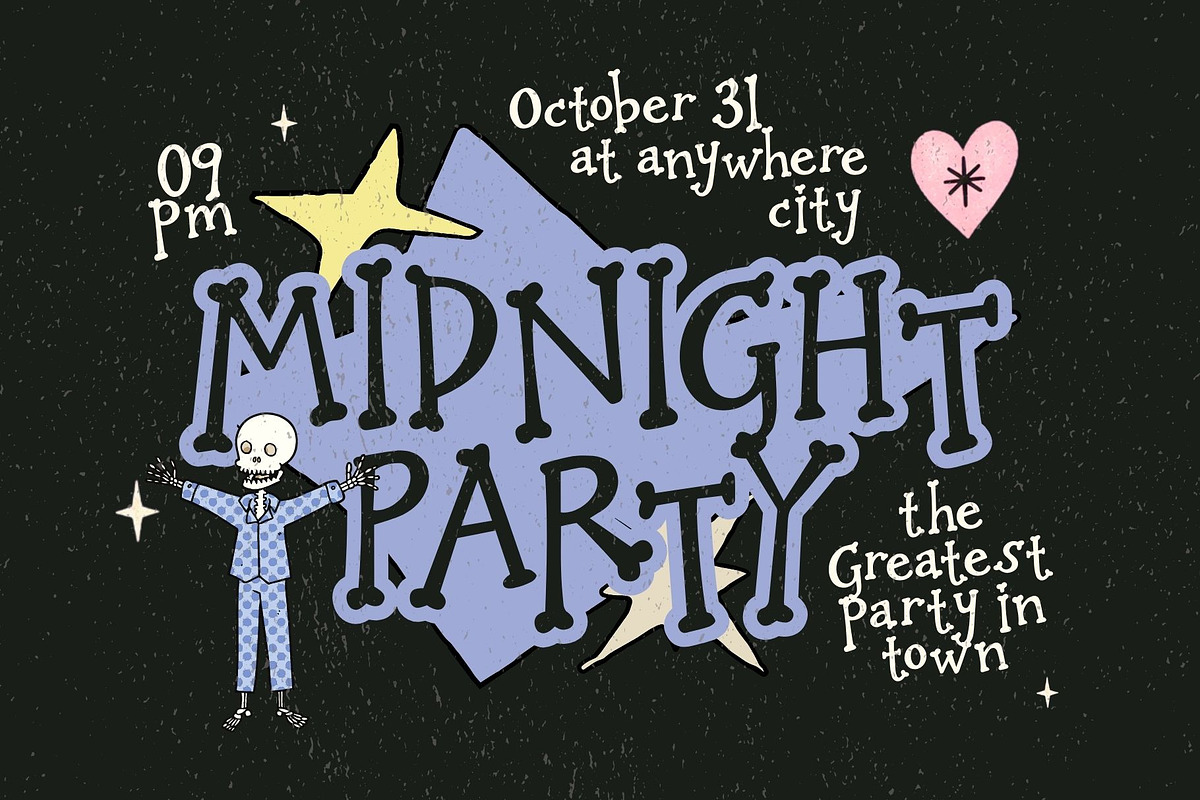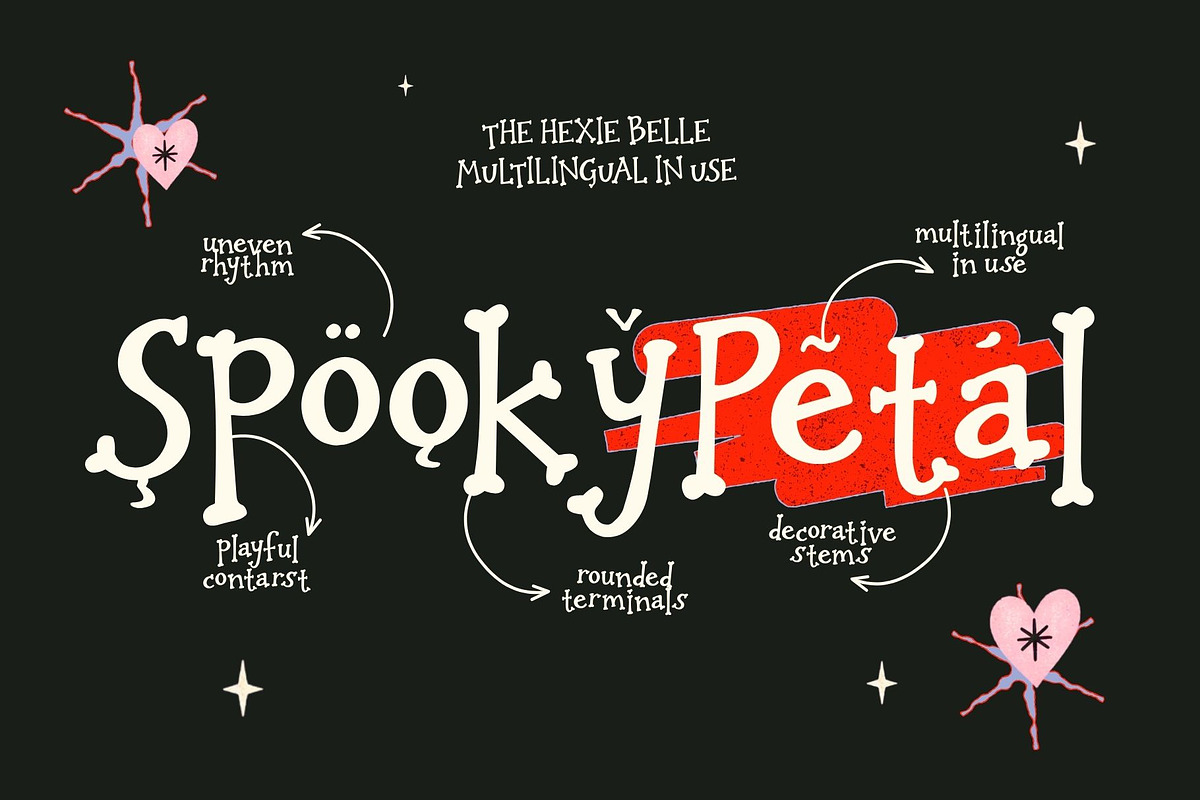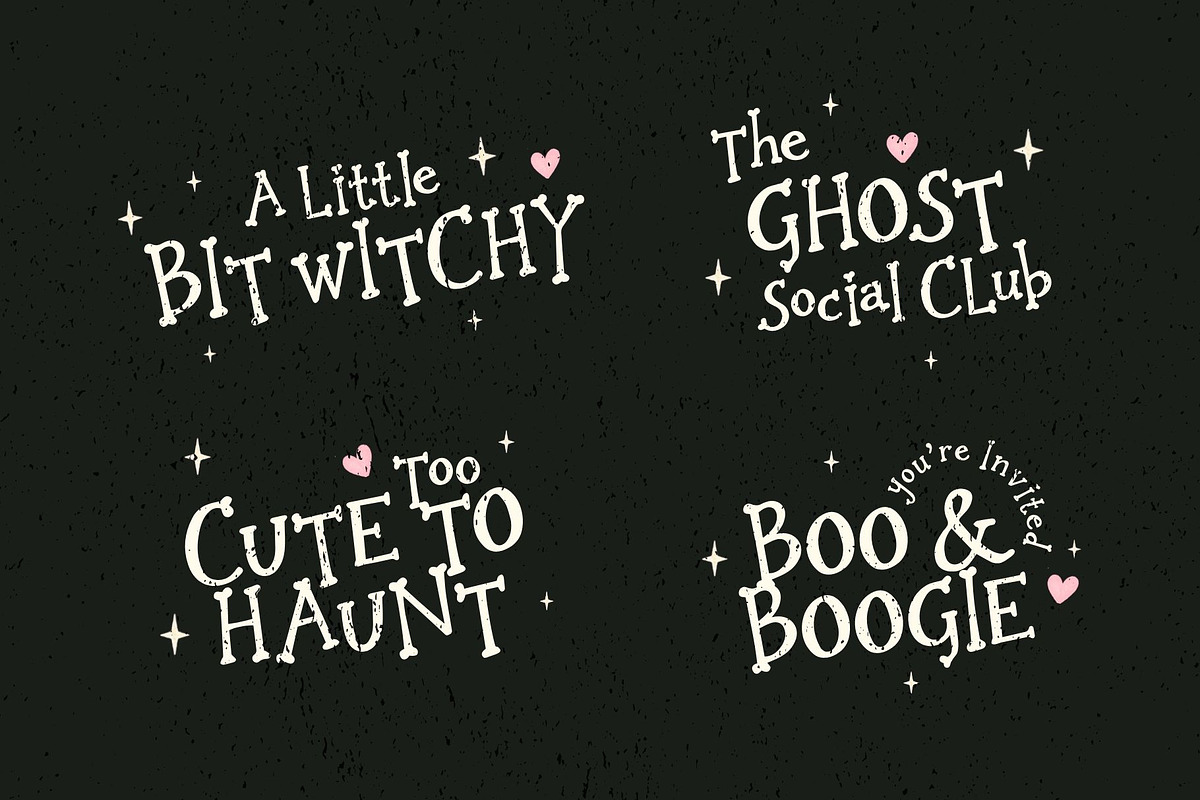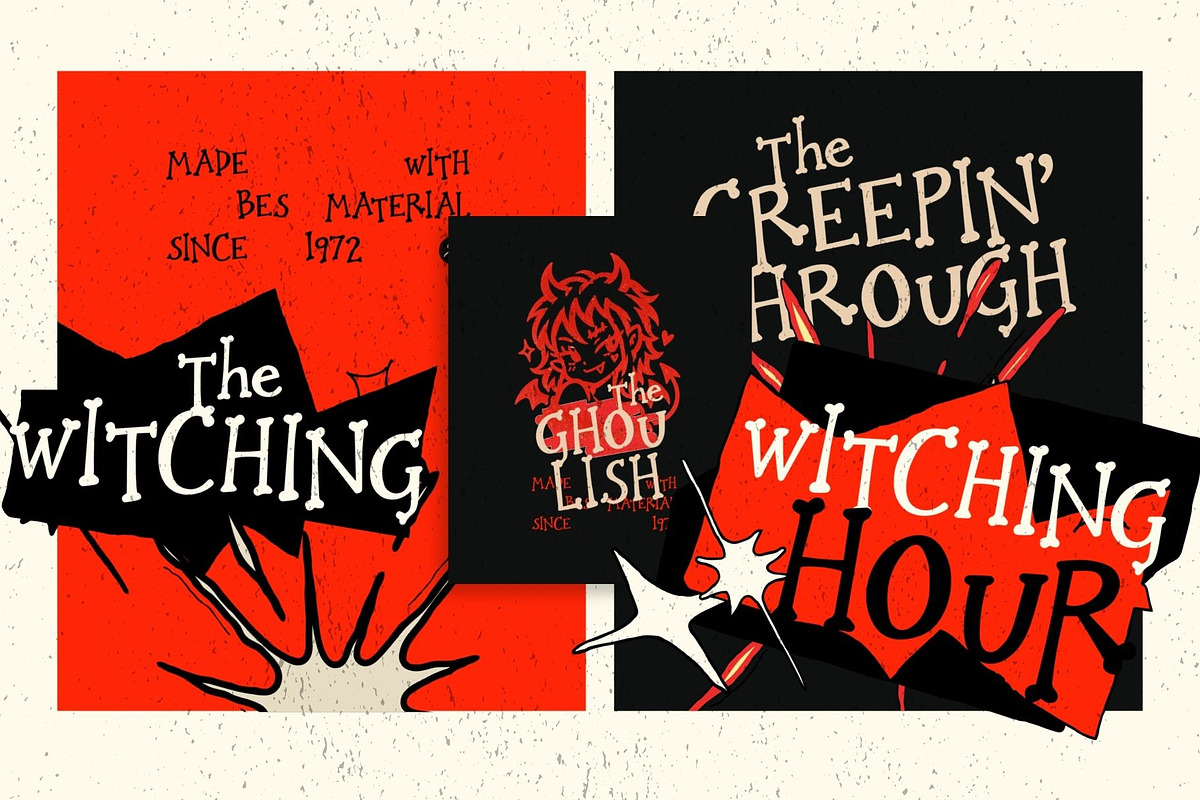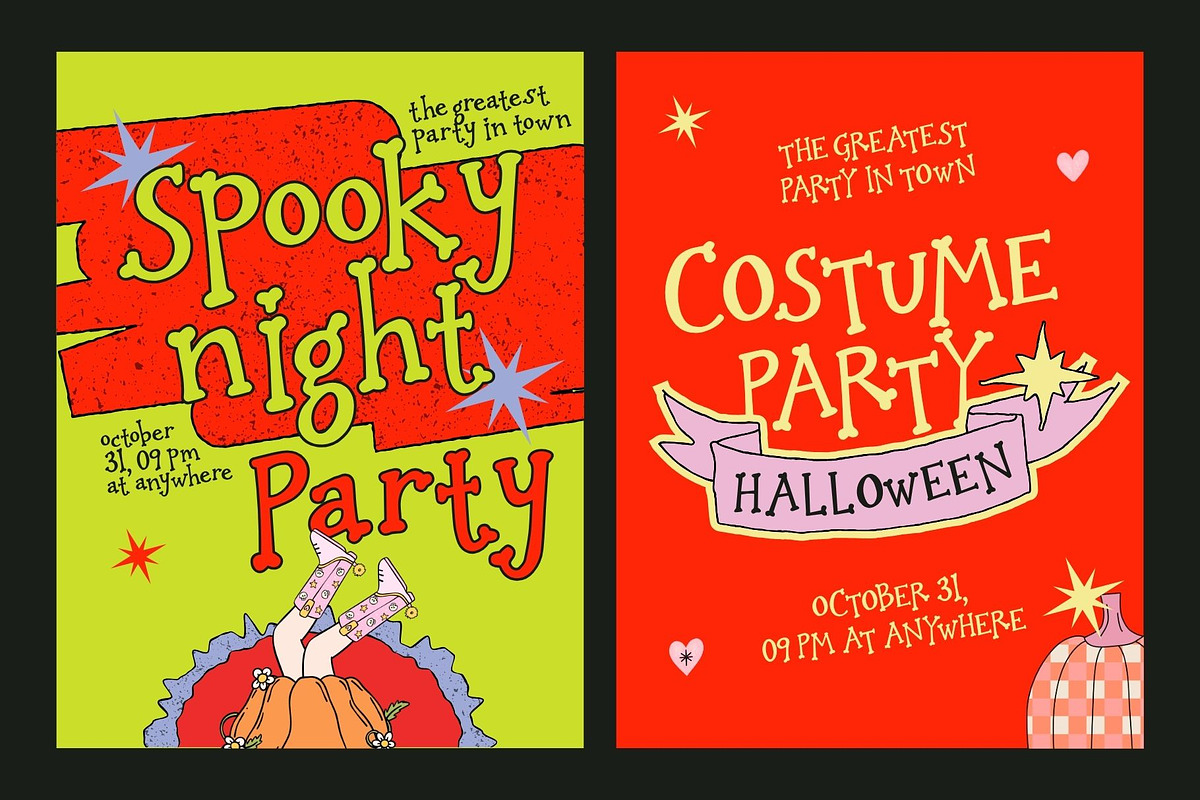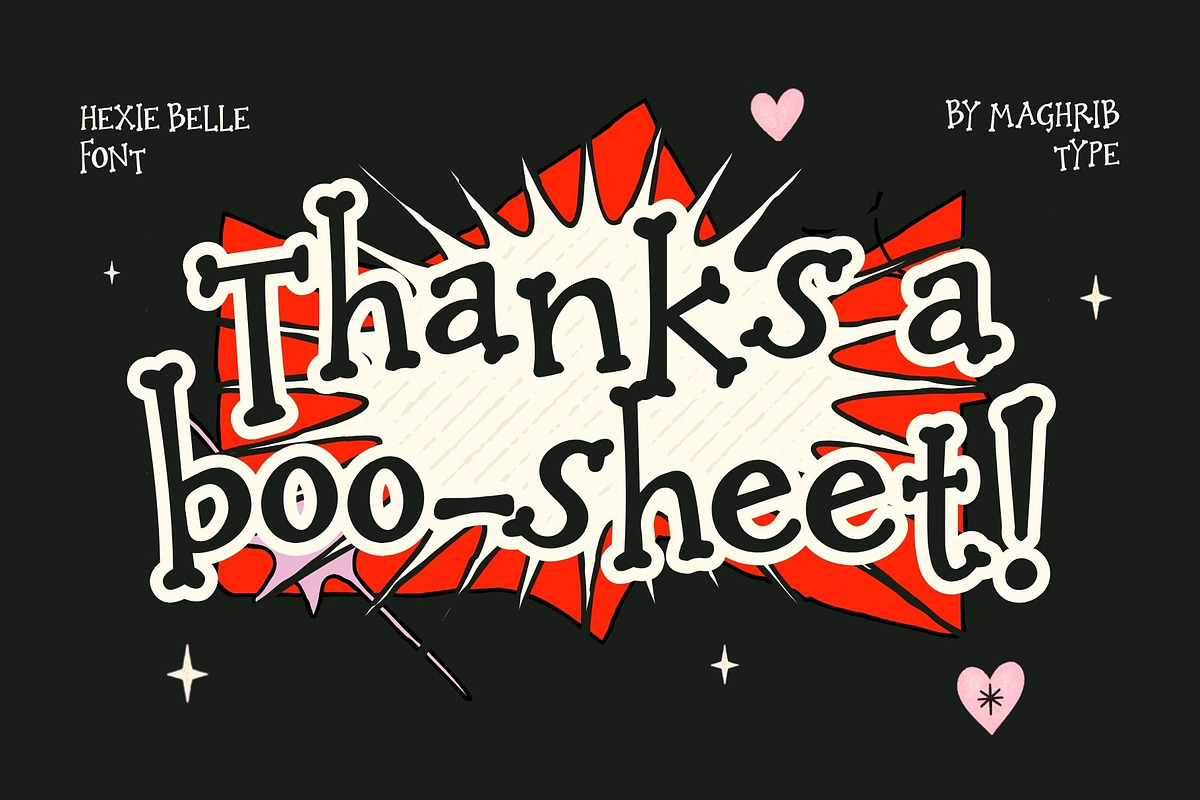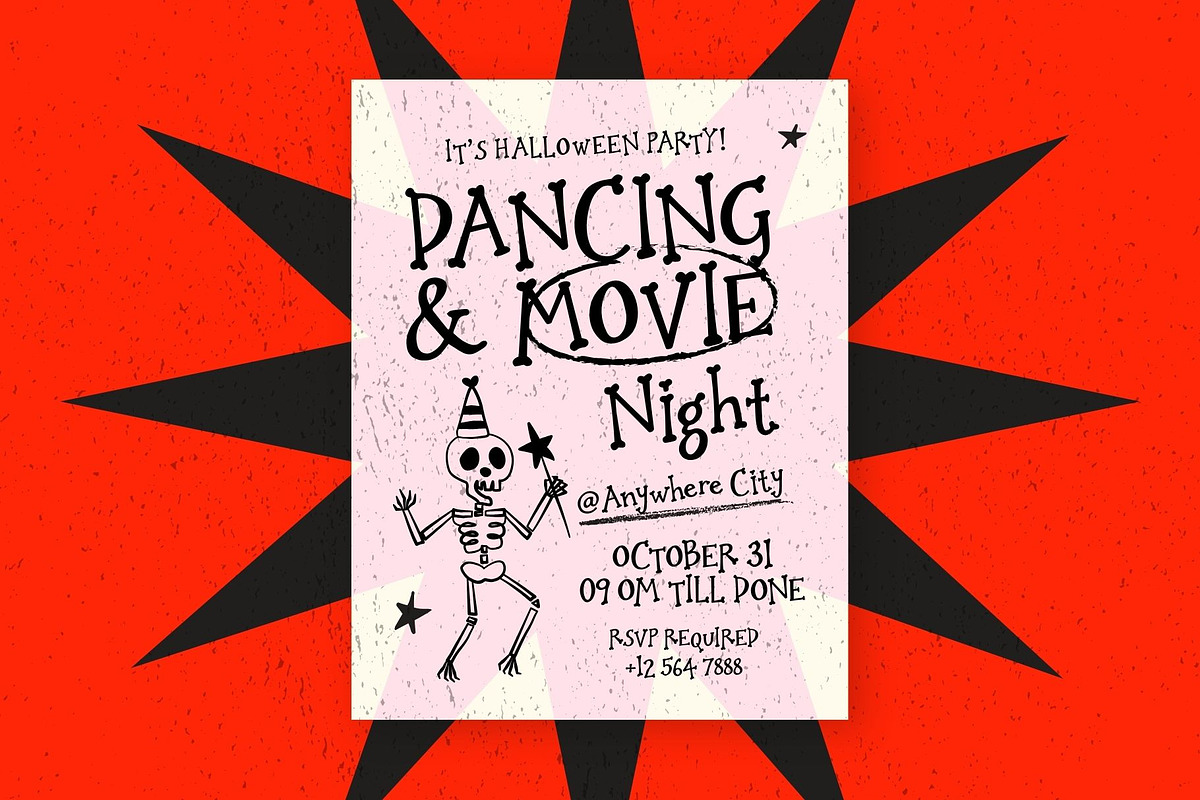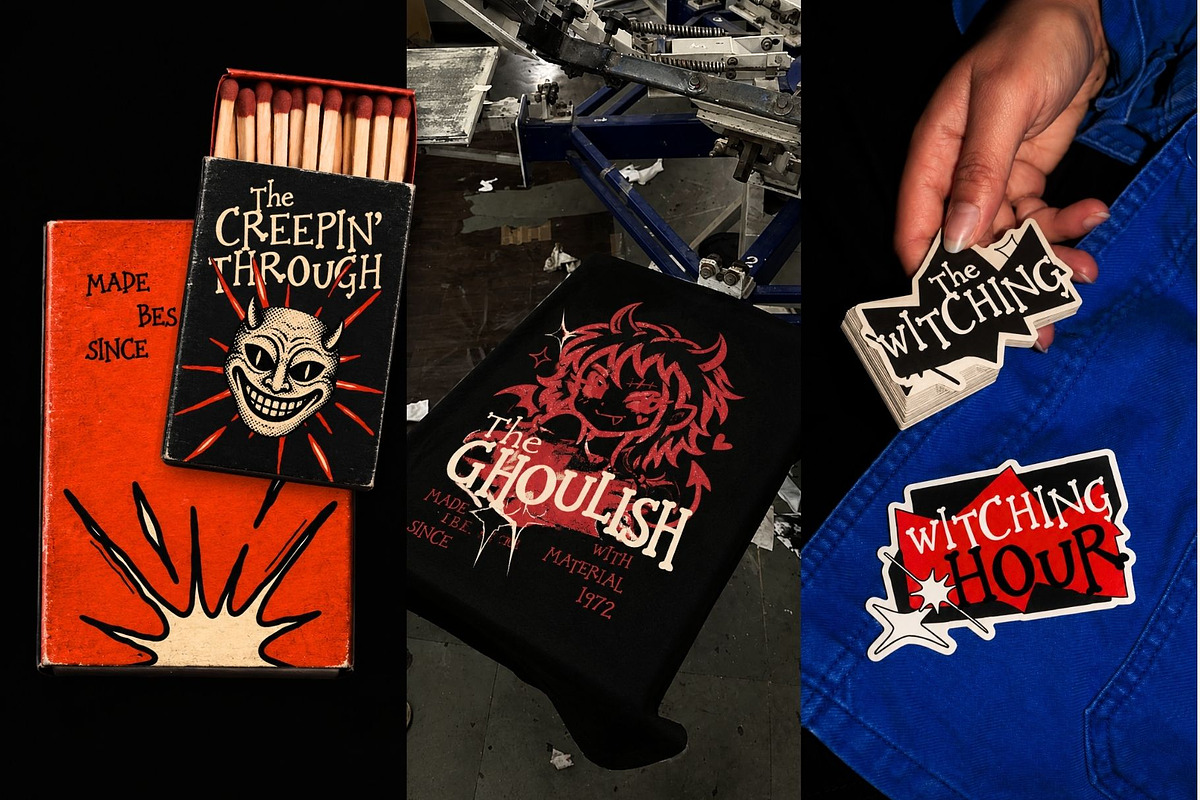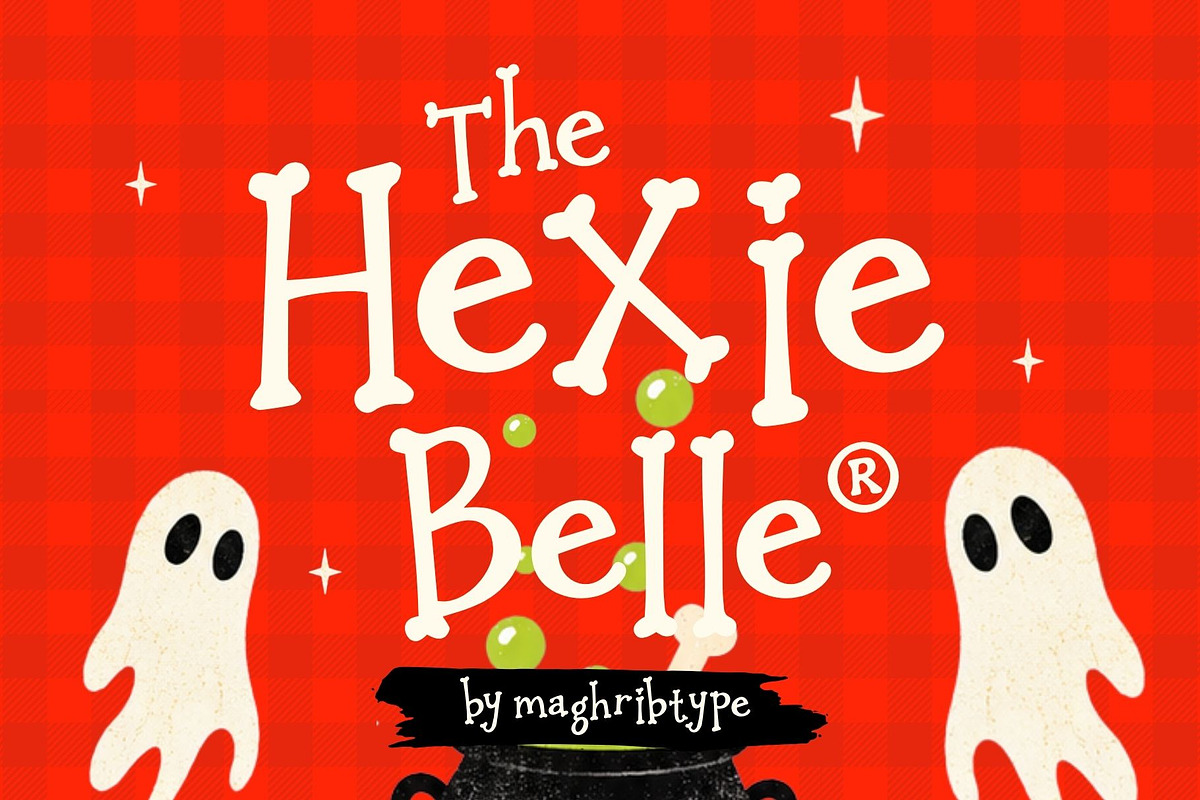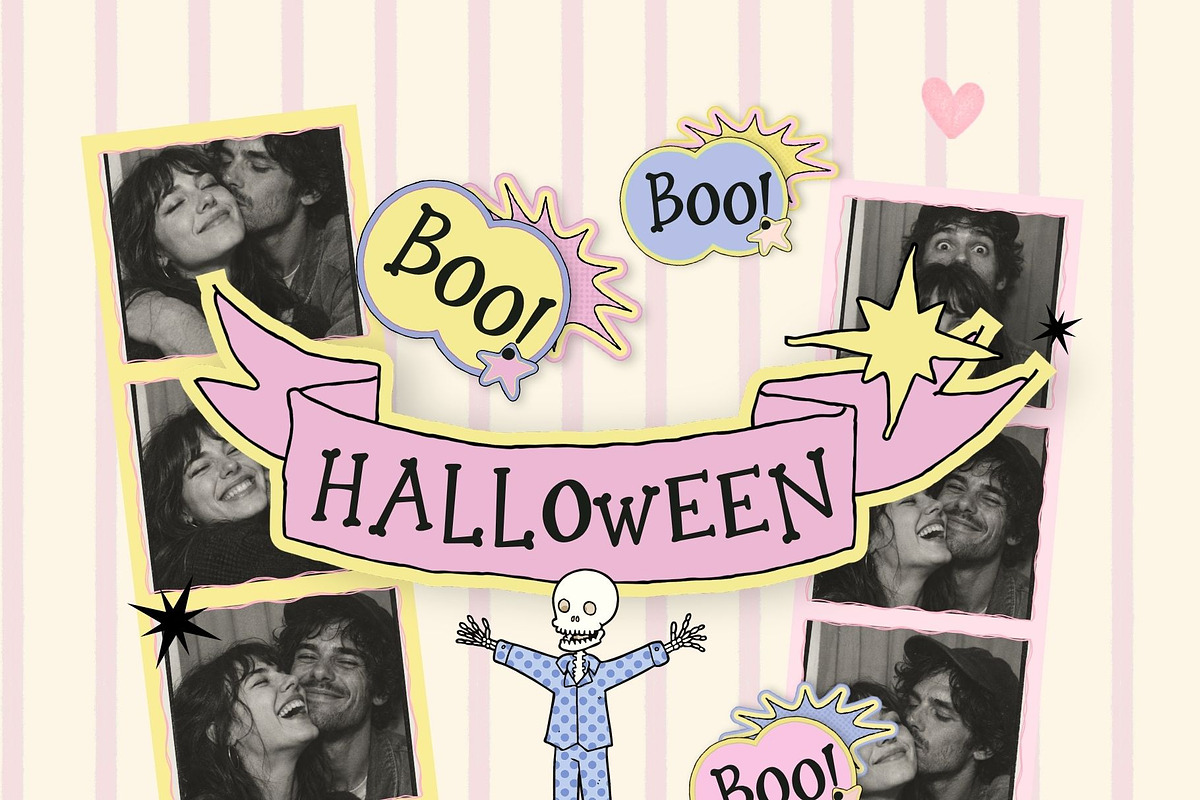
Hexie Belle
Hexie Belle — Playful Spooky Display Font
Meet Hexie Belle, a quirky and playful display font with a little spooky charm.
Inspired by vintage Halloween graphics, handmade posters, retro party artwork, and playful horror aesthetics, Hexie Belle combines uneven letterforms, rounded decorative terminals, quirky proportions, and a hand-drawn personality to create a typeface that feels fun, imperfect, and full of character.
Its slightly irregular rhythm gives every word a handmade look, while the distinctive bone-inspired terminals add a subtle creepy twist without making the font feel overly dark or scary.
Hexie Belle is perfect for creating eye-catching designs for Halloween projects, spooky parties, posters, stickers, apparel, packaging, social media graphics, invitations, merchandise, and retro-inspired branding.
Whether you want something cute and witchy or weird and spooky, Hexie Belle brings a playful handmade personality to your typography.
Halloween & spooky designs
Party invitations
Posters & flyers
Stickers & labels
T-shirt & apparel designs
Packaging
Greeting cards
Retro branding
Editorial artwork
Children's spooky themes
Halloween crafts
Quote designs
Hexie Belle is made to look imperfect, playful, and wonderfully weird.